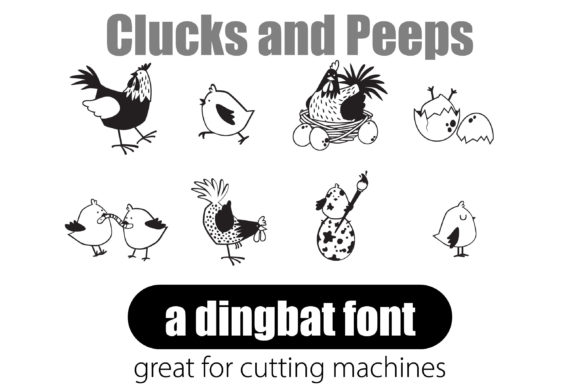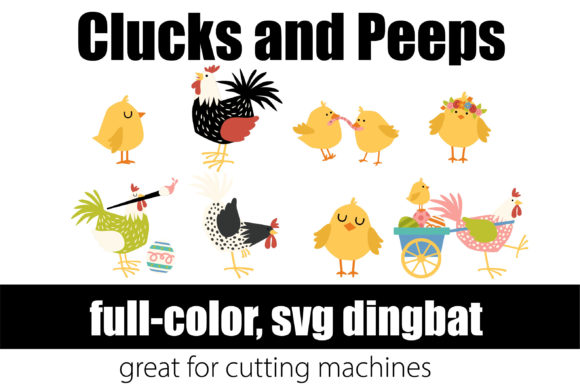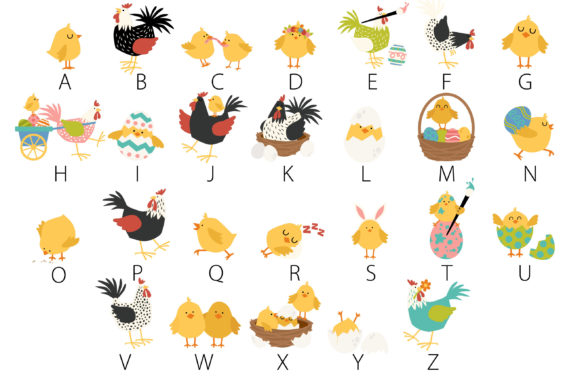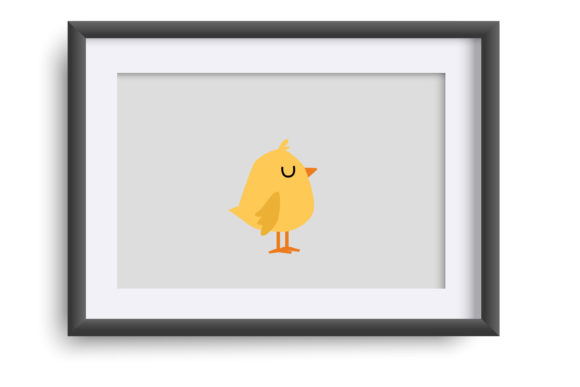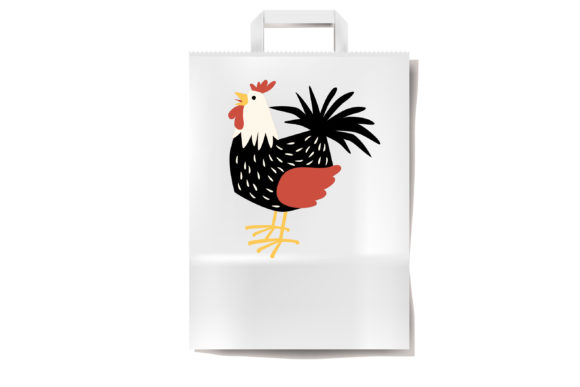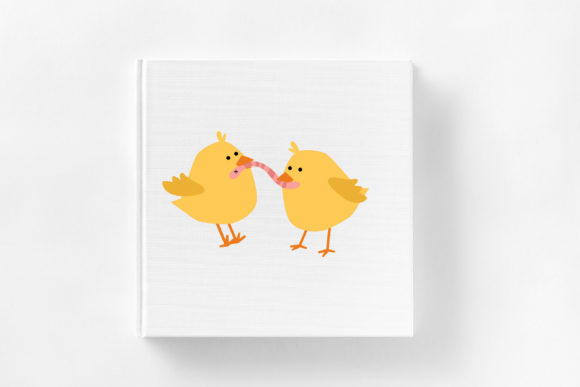
Clucks and Peeps Font: A Fun and Creative Dingbat Font for Designers and Crafters
Are you looking for a unique and playful font to add some personality to your designs? Look no further than the Clucks and Peeps Font bundle! This exciting collection includes two dingbat fonts that are perfect for designers, crafters, and anyone looking to add some whimsy to their projects.
What’s Included in the Bundle?
The Clucks and Peeps Font bundle includes two dingbat fonts that are sure to delight. The first font is a traditional, black and white dingbat featuring a variety of cute chicks, chickens, roosters, and Easter-themed imagery. The second font is a full-color SVG dingbat that offers the same adorable designs, but in vibrant color.
Both fonts are perfect for a variety of projects, from Easter-themed crafts to farm-themed designs. The black and white dingbat font is ideal for use in cutting machines, vinyl projects, and other applications where a simple, iconic design is desired. The full-color SVG font, on the other hand, is perfect for designers who want to add a pop of color to their projects.
Using the Clucks and Peeps Font with Cutting Machines and Vinyl
One of the best things about the Clucks and Peeps Font bundle is that it’s perfect for use with cutting machines and vinyl projects. The full-color SVG font is especially well-suited for these applications, as it allows for intricate, detailed designs that can be easily cut and applied to a variety of surfaces.
Tips and Ideas for Using the Clucks and Peeps Font
The Clucks and Peeps Font is a versatile design tool that can be used in a variety of creative ways. Here are a few ideas to get you started:
- Create Easter-themed crafts, such as cards, gift tags, and decorations.
- Design farm-themed projects, such as signs, banners, and iron-on transfers.
- Use the font to create custom vinyl decals and stickers.
- Add a playful touch to your digital designs, such as social media graphics and blog posts.
With its wide range of uses and easy-to-install format, the Clucks and Peeps Font is a great addition to any designer’s or crafter’s toolkit.
The Clucks and Peeps Font bundle is a fun and creative way to add some personality to your designs. With its two dingbat fonts, including a traditional black and white font and a full-color SVG font, this bundle is perfect for designers, crafters, and anyone looking to add some whimsy to their projects.